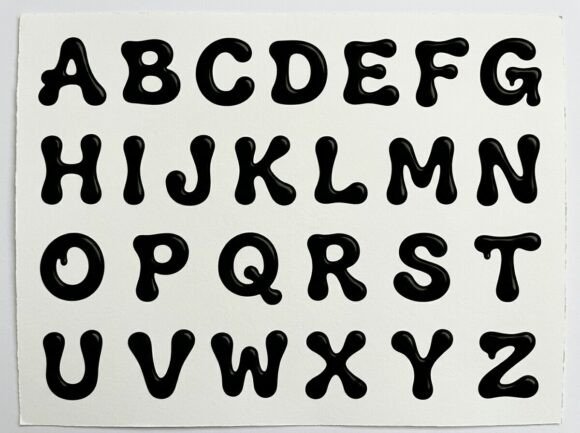
Introduction to Mames Font
Have you ever been working on a creative project, pouring your heart and soul into it, only to feel like something is missing? The perfect font can make all the difference, elevating your design from ordinary to extraordinary. That’s where Mames Font comes in – a stunning display font designed to be the centerpiece of any layout.
With its unique blend of artistic elements and strong character, Mames Font is the perfect tool for designers who want to break away from the ordinary and add a touch of high-end sophistication to their work. Whether you’re working on a logo, branding project, or packaging design, Mames Font delivers a professional aesthetic without compromising on personality.
Key Features of Mames Font
- High-quality design resource with a unique, creative style suitable for various creative projects.
- Features a transparent background, allowing for seamless integration into various design elements and backgrounds.
- Includes a range of characters and glyphs, making it a versatile design resource for creative projects.
- Designed with high resolution, ensuring crisp and clear display on various screens and devices.
- Supports a wide range of languages, making it a valuable resource for designers working on international projects.
Honest Review: Mames Font
I recently had the chance to work with Mames Font, and I must say it’s a great addition to any design project. The font is a high-quality resource that can elevate your creative project to the next level.
- ✨ Transparency: The Mames Font comes with a transparent background, making it easy to work with and blend with other design elements.
- ✨ Versatility: The font is highly versatile and can be used in a variety of design contexts, from digital to print.
While Mames Font is an excellent choice for many designers, there are a few limitations to consider:
- ⚠️ Limited Character Set: The font has a limited character set, which may not be suitable for projects that require a wide range of characters.
- ⚠️ Limited Customization: While the font is highly customizable, there are some limitations to how much you can adjust the design.
Mames Font
Mames Font is suitable for a variety of applications, including:
- Logos and branding
- Infographics and visualizations
- Editorial content and publications
- Marketing materials and advertisements